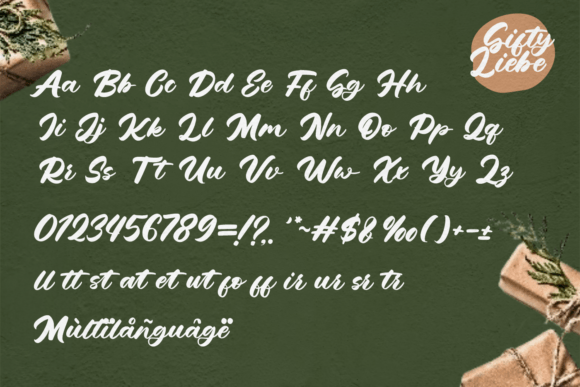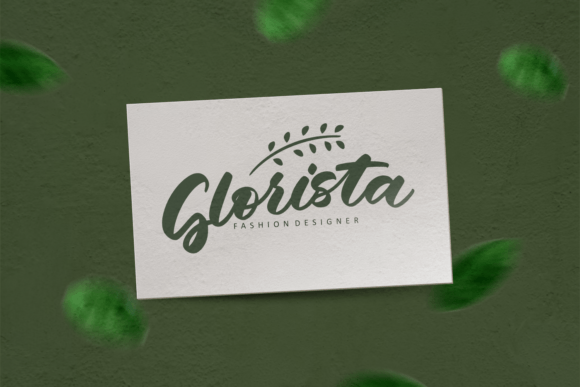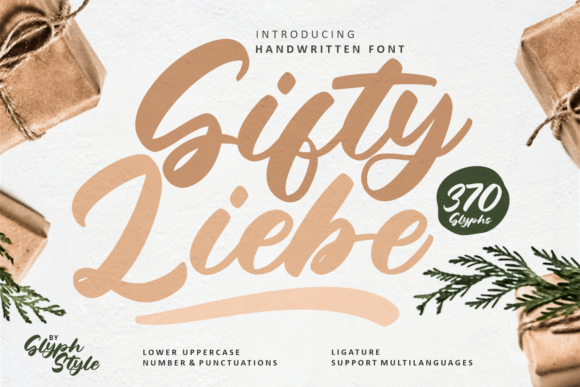
Gifty Liebe Font
Gifty Liebe Font is a very familiar, cursive handwritten font that is perfect for crafting or DIY designs. It is also very suitable for greeting cards, gifts, social media and so much more.